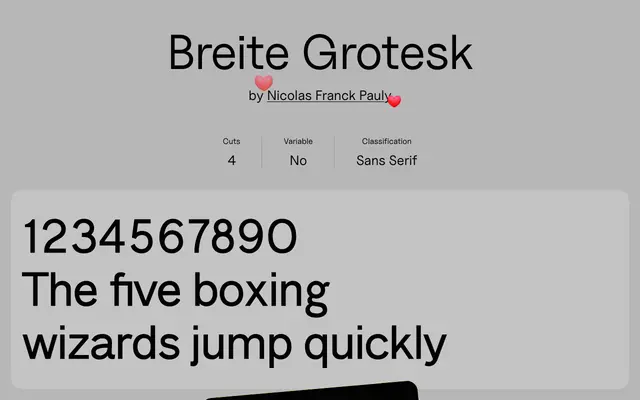
Breite Grotesk
A wide grotesque sans by Nicolas Franck Pauly, available in four cuts under the SIL Open Font Licence for both commercial and personal use.
Released by Nicolas Franck Pauly, Breite Grotesk is a grotesque sans-serif with a notably wide stance, as suggested by its German name. It comes in four cuts with no variable font support, and is distributed freely under the SIL Open Font Licence 1.1, permitting commercial use, modification and redistribution. A practical choice for display work where breadth and openness are useful.
Classified as Sans Serif by the foundry; the name 'Breite' (German for 'wide') and grotesque styling place it firmly in the grotesque sans-serif tradition.